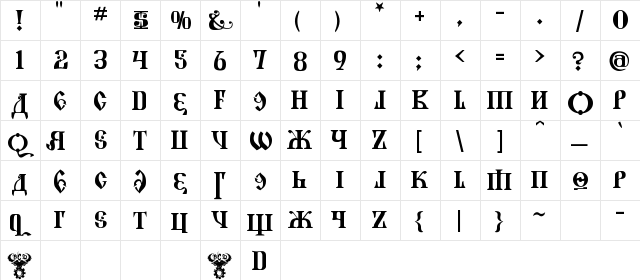
Kremlin Grand Duke Regular
Design Context for Kremlin Grand Duke Typeface
Kremlin Grand Duke is a composed and adaptable typeface that performs quietly and consistently across a wide range of design contexts.